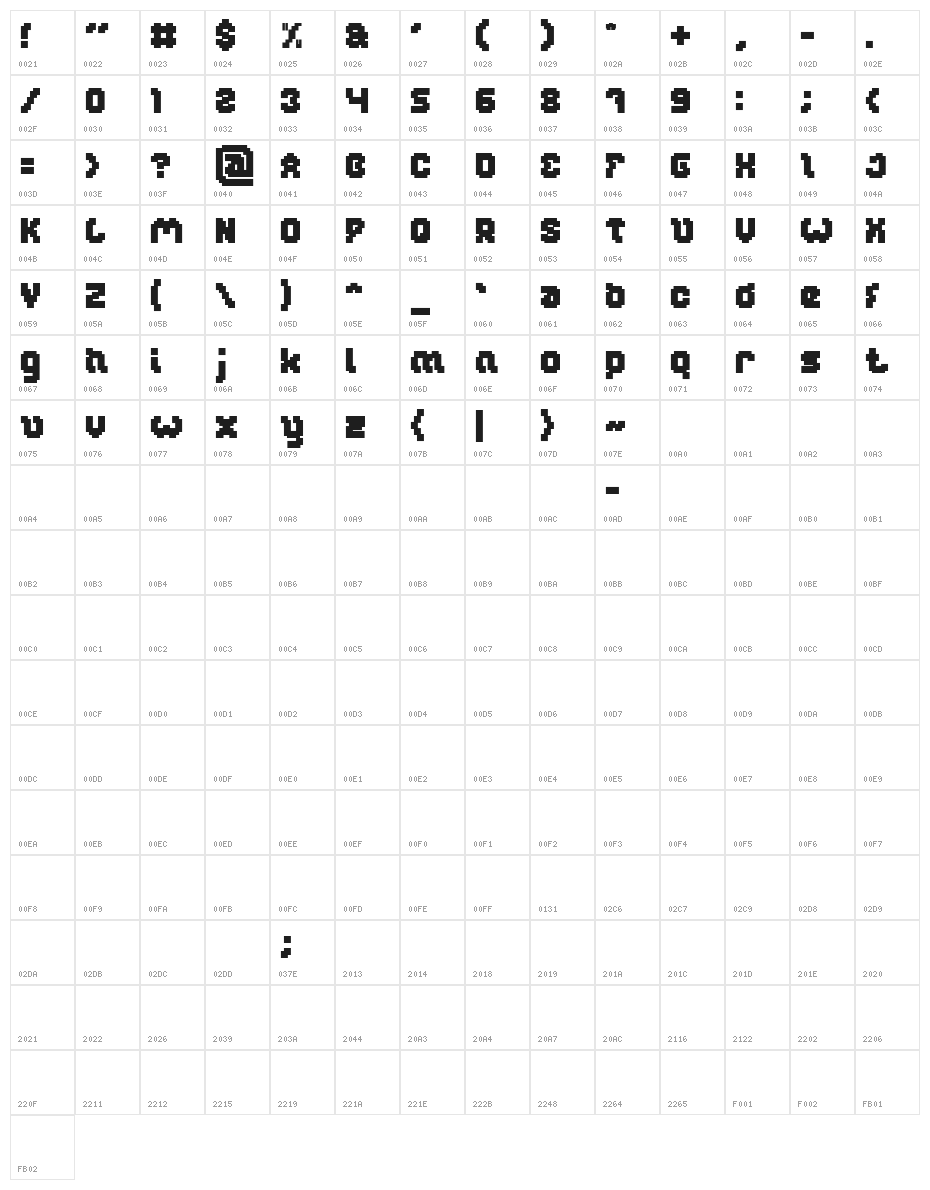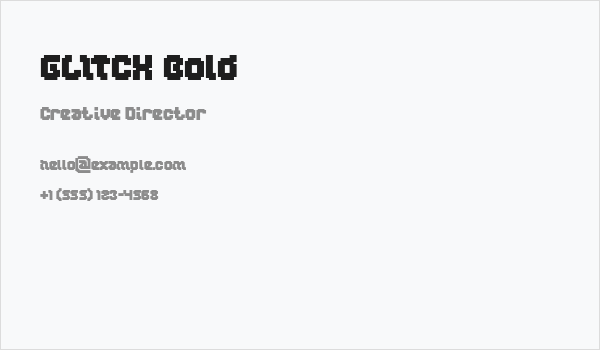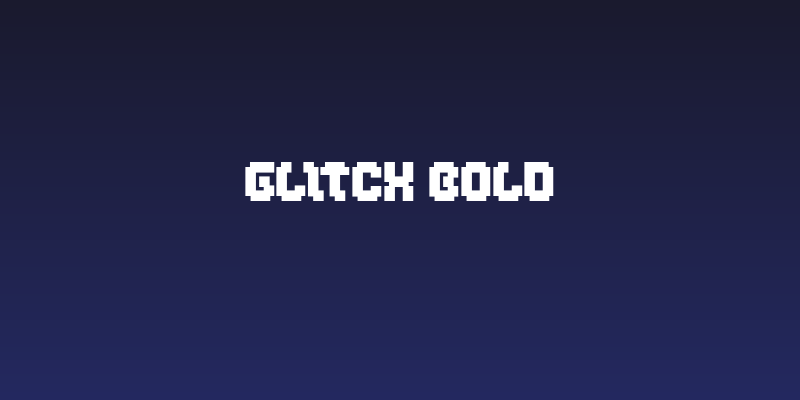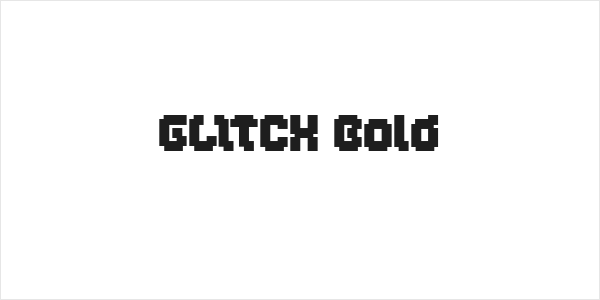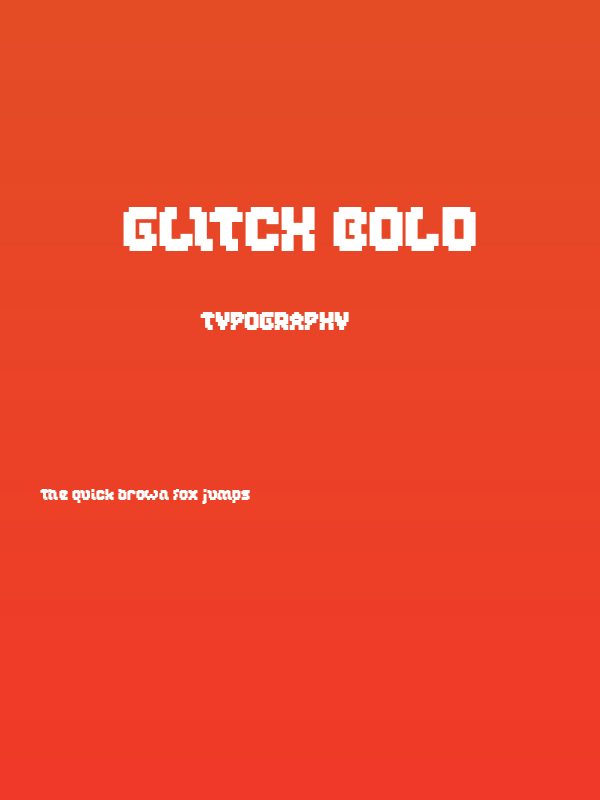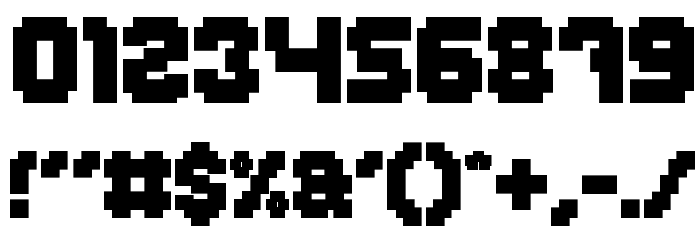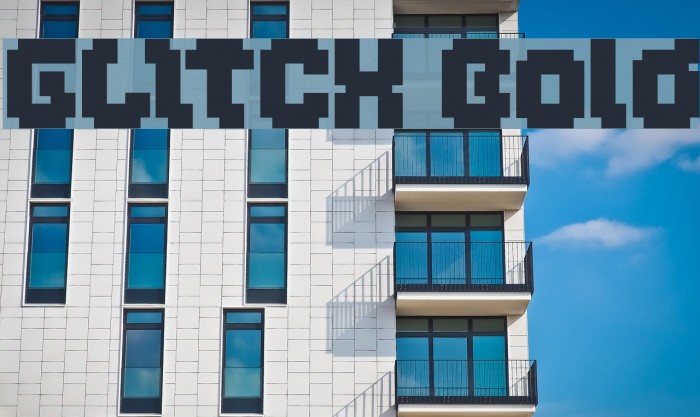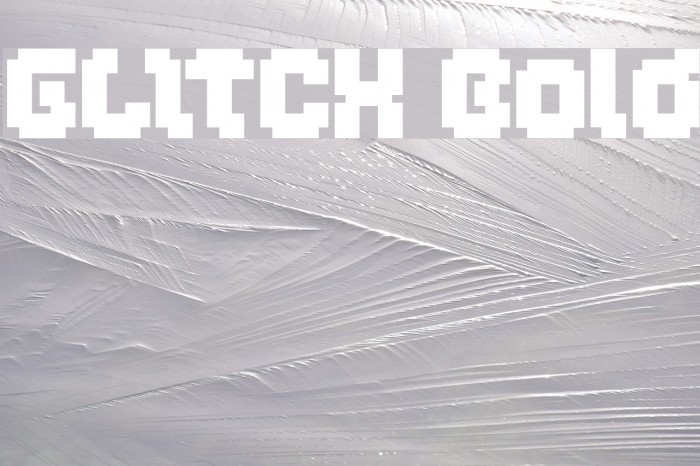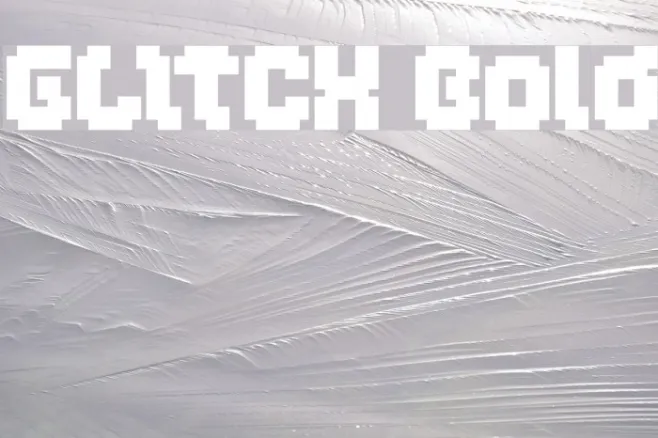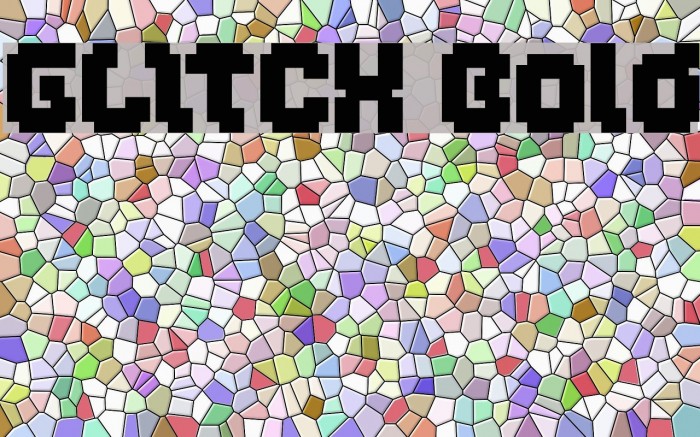
GLITCH Bold Font
GLITCH Bold Description
This font features a bold, pixelated design reminiscent of retro digital displays and early video game graphics. Each character is constructed with a blocky, grid-like structure, giving it a distinctly digital and modern aesthetic. The uppercase and lowercase letters maintain a consistent height and width, creating a uniform appearance across the board. Numbers and special characters follow the same pixelated style, ensuring a cohesive look. The font's boldness makes it highly legible, even at smaller sizes, while its unique style adds a touch of nostalgia and tech-inspired flair.
| Proposed Projects | Ideal for video game design, tech-themed posters, digital art projects, and retro-style branding. |